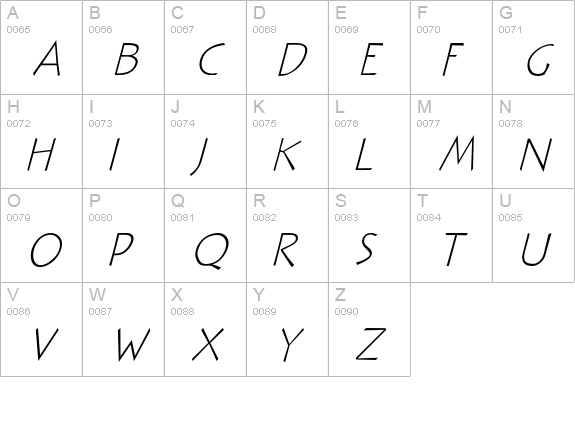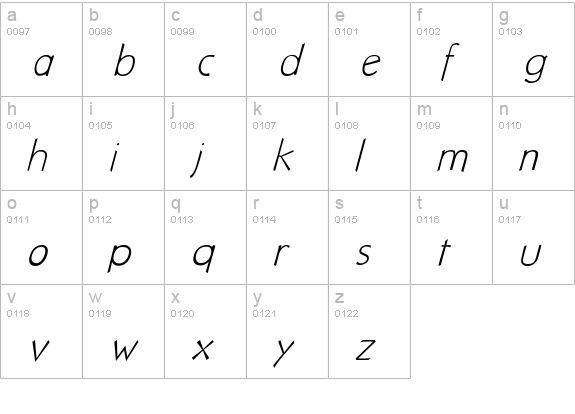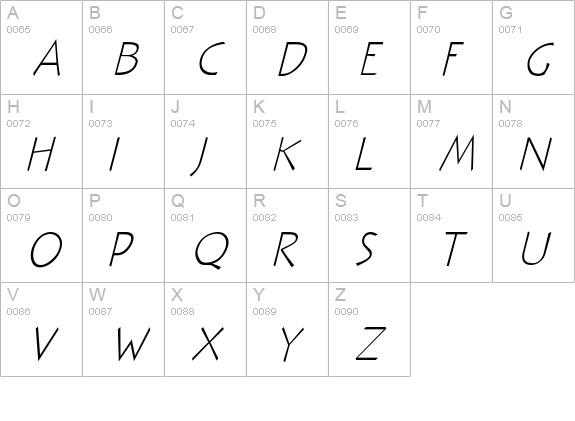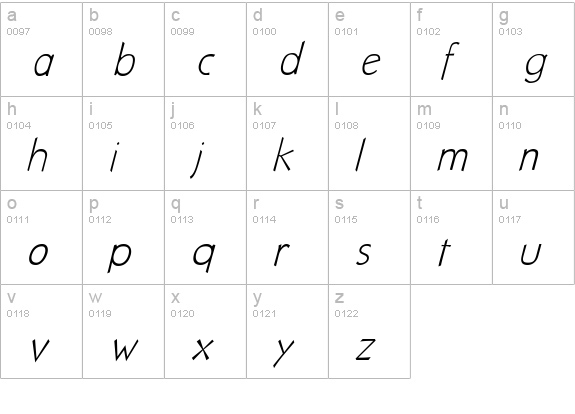
NuevoLitho LightItalic Font Details
NuevoLitho LightItalic is a modern and elegant typeface that exudes sophistication and style. Its sleek and slender design makes it perfect for adding a touch of sophistication to any project. The delicate curves and subtle slant of the italicized characters give this font a unique and graceful appearance. What makes NuevoLitho LightItalic even more appealing is that it is available for free download at FontsMarket.com. This means that you can easily access this beautiful font without any cost, making it a great choice for designers looking to elevate their designs without breaking the bank. Whether you're working on a branding project, a website design, or any other creative endeavor, NuevoLitho LightItalic is sure to make a lasting impression. With its refined aesthetic and effortless elegance, this font is a versatile addition to any designer's toolkit. Download NuevoLitho LightItalic today and add a touch of sophistication to your next project.